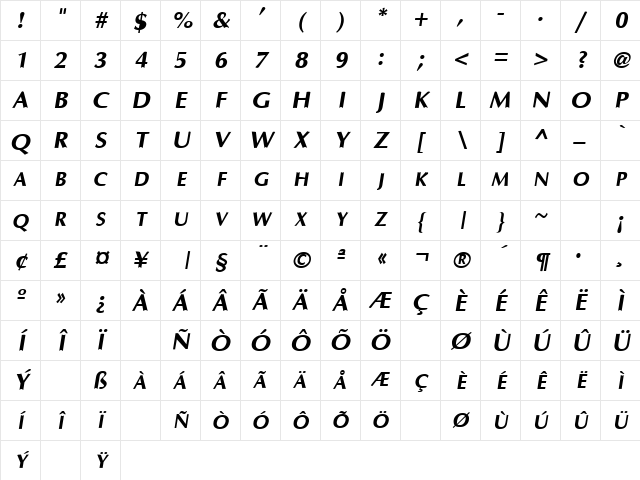
OptimalExpert Bold-Oblique
Style: Bold-Oblique
Design Context for OptimalExpert
OptimalExpert is a composed and adaptable typeface that performs quietly and consistently across a wide range of design contexts. The slanted form adds forward momentum and visual energy. Its bold stroke weight gives it real presence on the page.
Pro Tip: Use OptimalExpert for emphasis, pull quotes, and subheadings where its slanted energy can add rhythm to the layout.